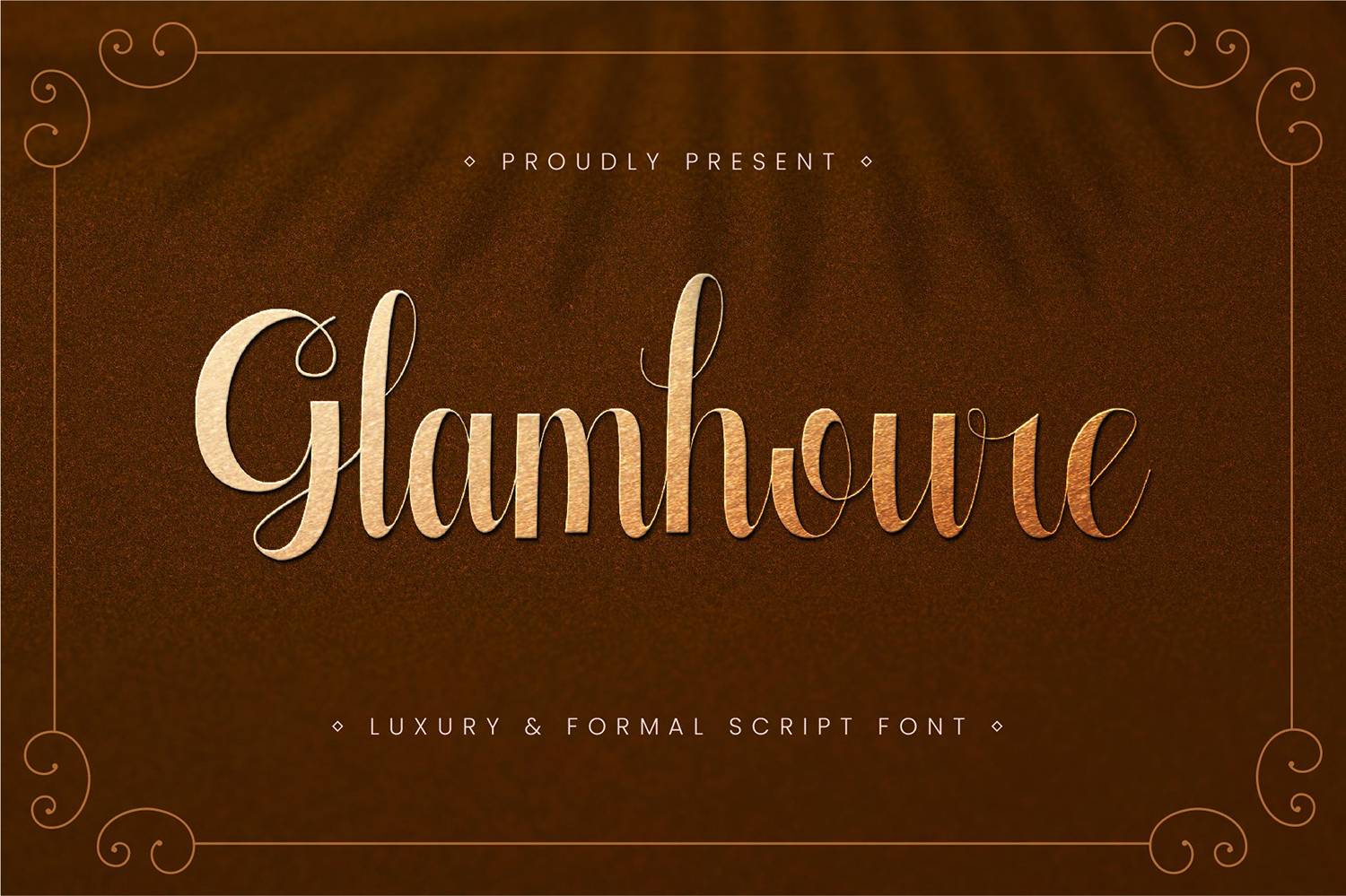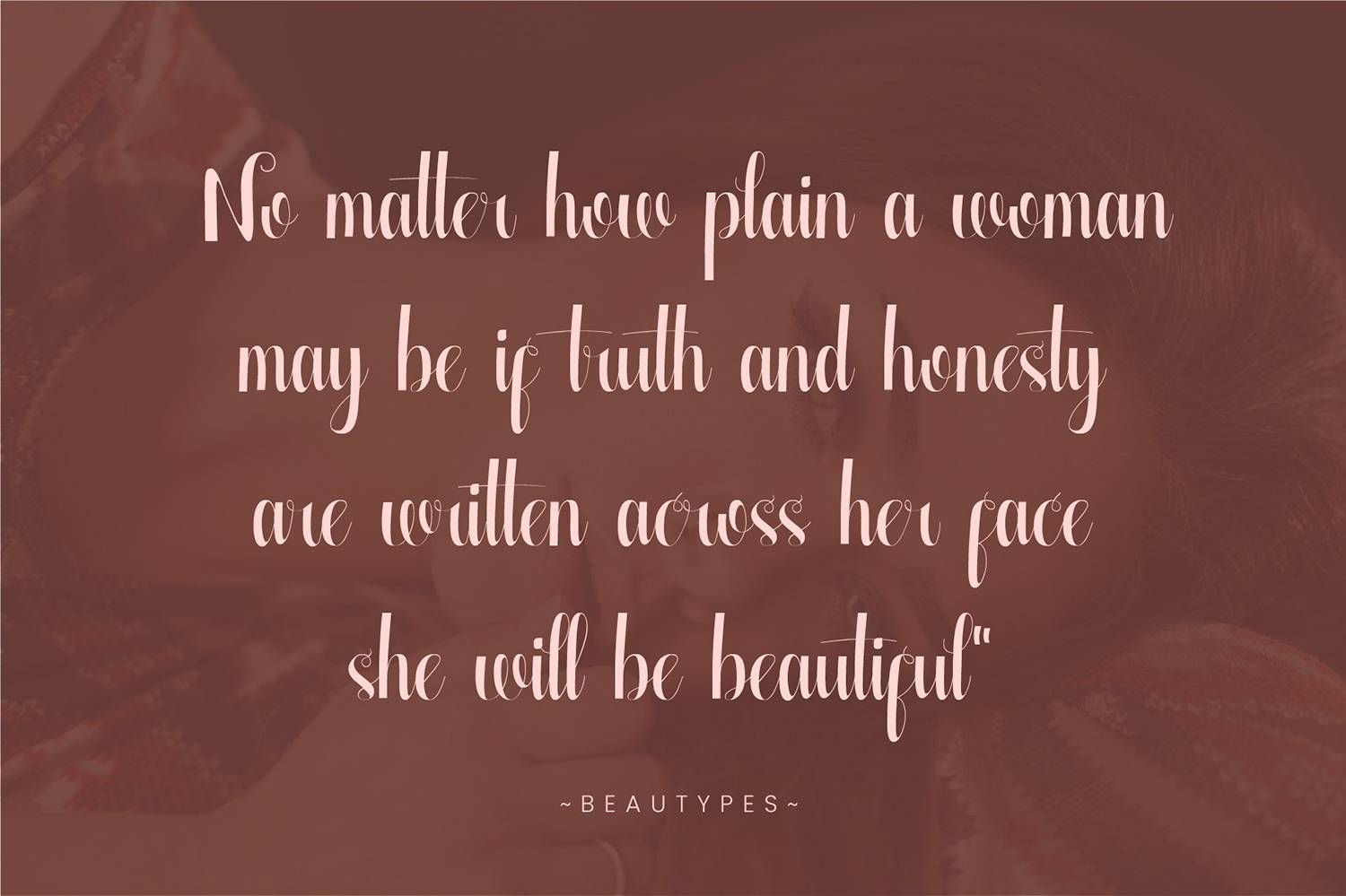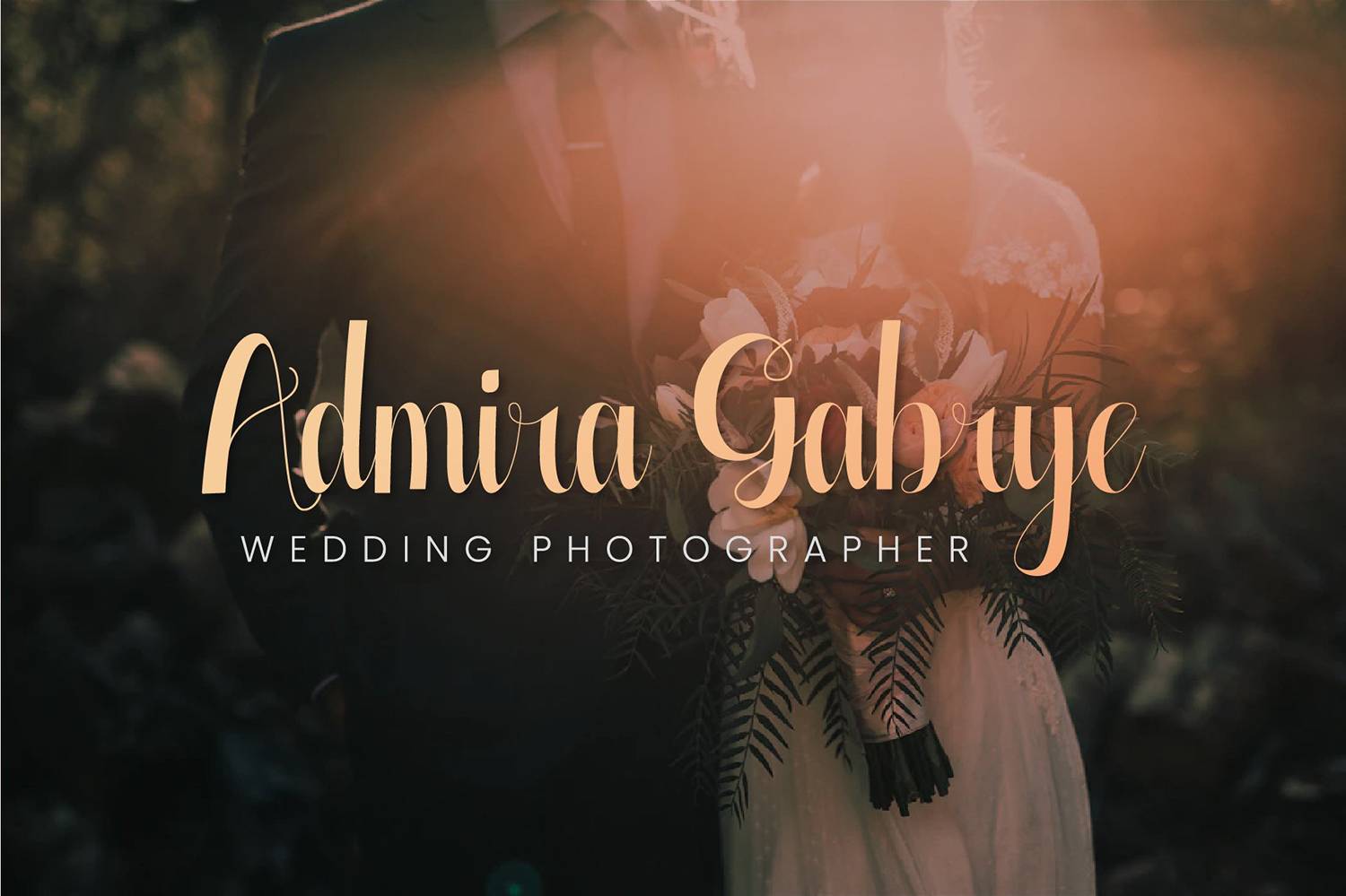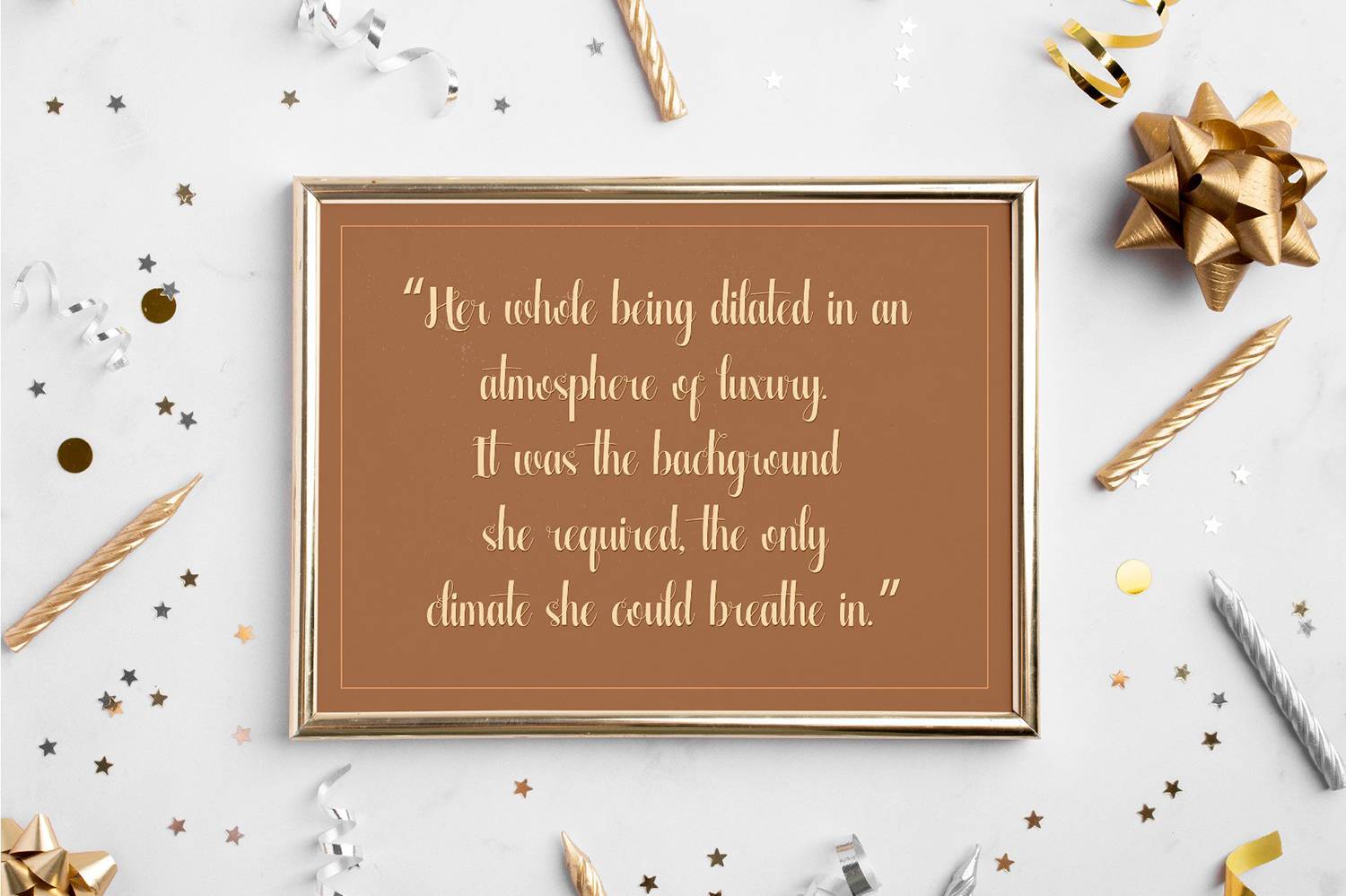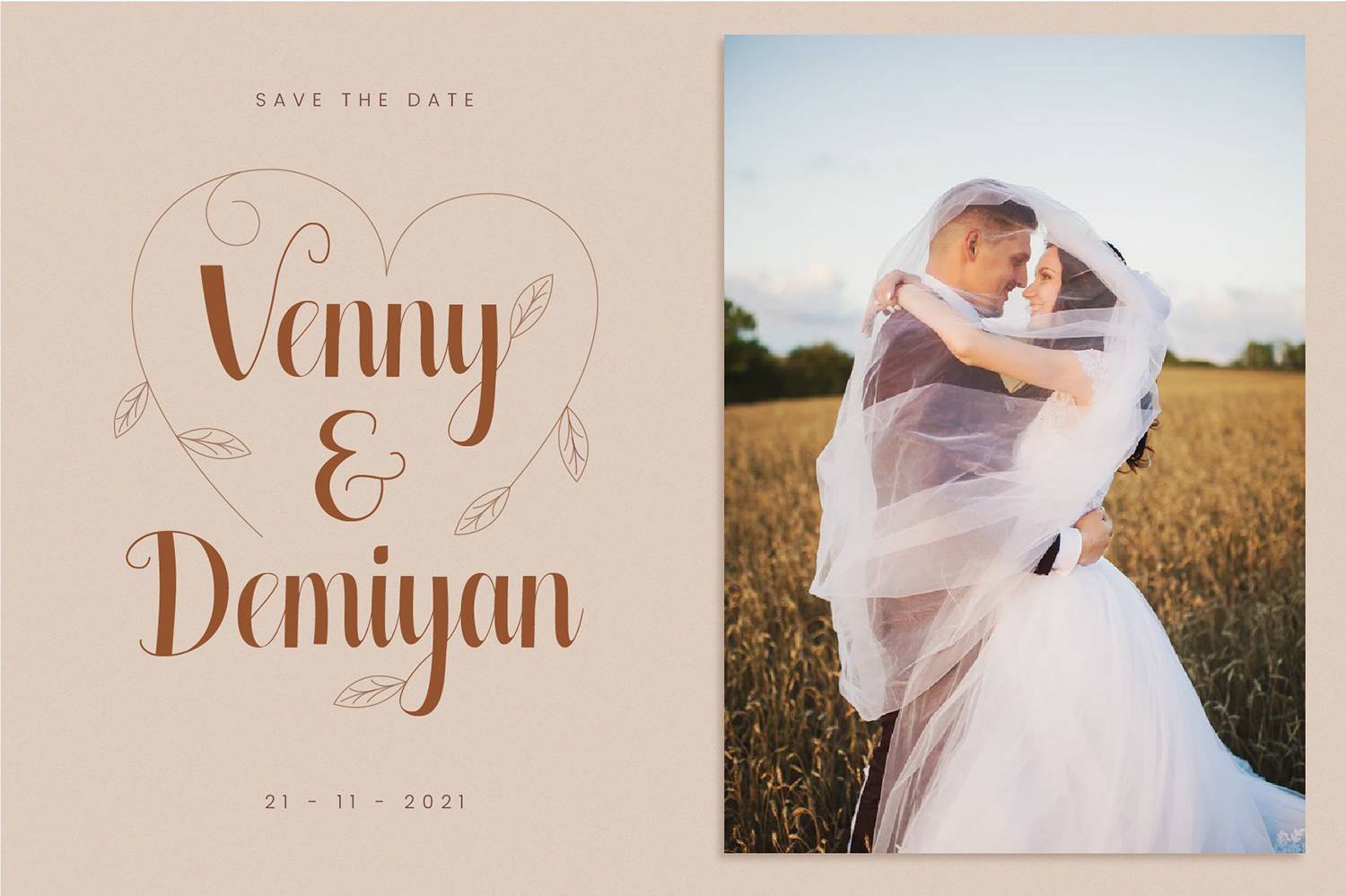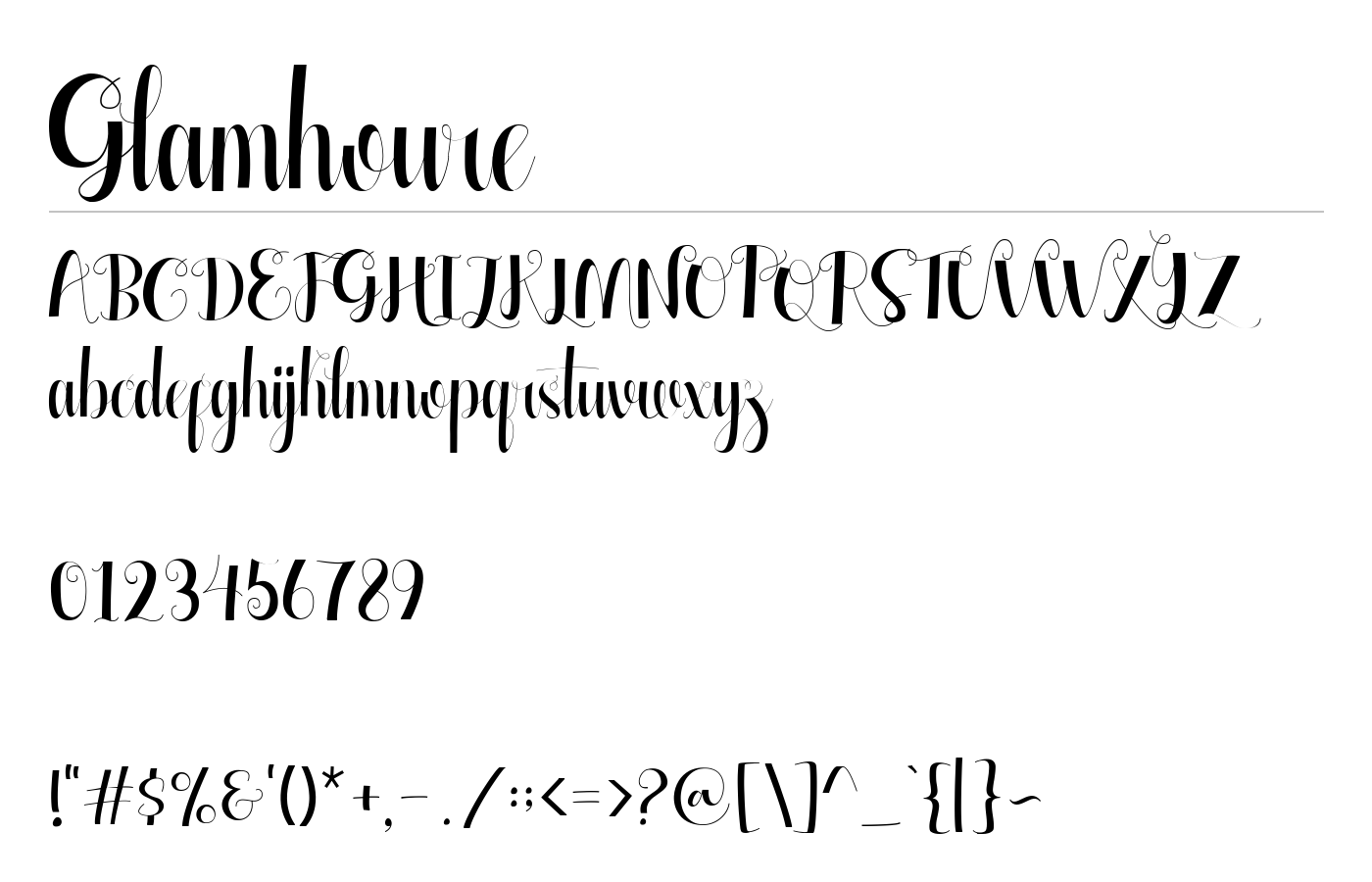
Glamhoure is an elegant and sophisticated script font that combines high contrast strokes with stylish flourishes, creating a refined and glamorous look. Its tall, narrow letterforms and delicate swashes make it perfect for luxury branding, fashion design, and upscale invitations where a touch of elegance and personality is desired. This font works best in headlines or decorative text where its intricate details can truly shine.
Glamhoure Font
About Glamhoure Font